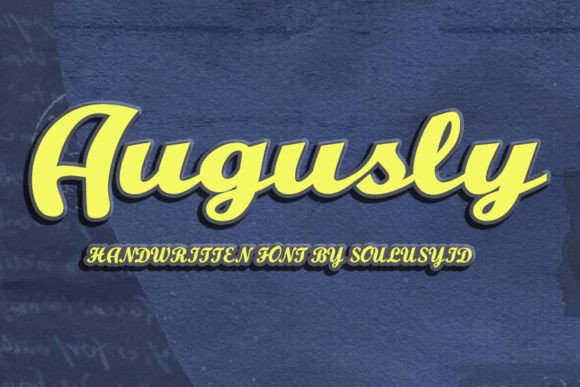
Discover the Enchanting Augusly Font: A Personal Touch for Your Design Projects
Immerse yourself in the warmth and charm of Augusly, a hand-crafted script font that exudes a personal touch like no other. Each letter, meticulously designed by the talented SoulusYid, dances across the page with a natural flow that captures the essence of handwritten elegance.
Augusly is not just a font; it's an invitation to express your creativity with a unique and heartfelt touch. Whether you're designing invitations, greeting cards, or any personal project that calls for a cozy, welcoming feel, Augusly will effortlessly elevate your designs to new heights.
With its sweeping curves and playful personality, Augusly is the perfect choice for adding a touch of whimsy and charm to your projects. Its versatility shines through in a wide range of applications, from logos and branding to social media posts and website design.
Imagine your designs coming to life with the magic of Augusly. Your invitations will radiate warmth, your greeting cards will carry heartfelt messages, and your social media posts will captivate your audience with their enchanting charm.
Augusly is more than just a font; it's a storyteller, a muse that inspires creativity and sparks imagination. Let your designs bloom with the beauty of Augusly, and create projects that resonate with your audience on a deeper level.